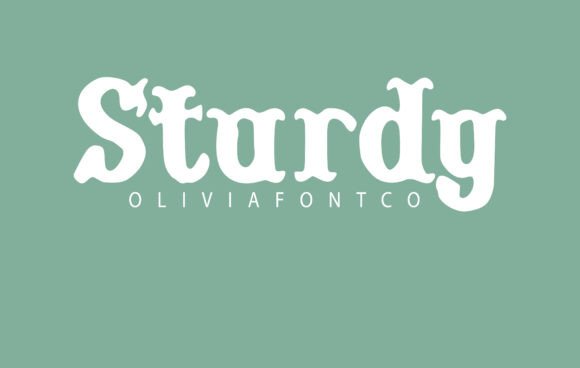
Sturdy Font: Authentic Handwritten Style for Branding
Testing Sturdy Font for Artisan Café Brand Identity
When I first opened a blank artboard to begin visual identity work for a new artisan café, selecting the right typeface was the most critical decision in the entire process. Sturdy font is an authentic handwritten font with a romantic touch that immediately caught my eye during the initial mood boarding phase, distinguishing itself from the sea of generic options available today. While browsing through various Fonts categorized under Slab Serif and display styles, I needed something that felt grounded yet approachable for a coffee shop emphasizing handmade pastries and community connection. The challenge in modern branding is often finding a balance between professional legibility and genuine human warmth, and this specific typeface offered a unique solution that felt less like a digital asset and more like a crafted element.
In this real-world project, the goal was to avoid the sterile look of corporate chains while maintaining enough structure to function across signage and menus. Sturdy provided that necessary anchor. It wasn't just about aesthetics; it was about communication. As I began testing the letterforms against rough sketches of the logo, the weight of the strokes suggested reliability—living up to its name—while the subtle irregularities in the baseline added that essential organic texture. For designers working on hospitality or lifestyle brands, this duality is gold. It allows you to present a business that feels established and trustworthy without sacrificing the intimate, personal vibe that draws customers in off the street.
Sturdy for Logo Design and Packaging Labels
Applying Sturdy to logo design and packaging labels requires understanding how its authentic handwritten characteristics translate at different scales. Expertly designed to be a true favorite, this font has the potential to take your creative ideas to the highest level when used as a primary logotype or a prominent accent on product packaging. During the mockup phase for the café’s pastry boxes and coffee bags, I found that the font’s inherent texture prevented the branding from looking too flat or digitally printed. Unlike standard sans serifs that can sometimes feel cold on kraft paper or textured cardstock, Sturdy absorbed into the material visually, creating a cohesive tactile experience that reinforced the "handmade" value proposition of the client's products.
For logo applications specifically, the font works exceptionally well when given room to breathe. I avoided tightening the tracking too much, as the natural spacing is part of its charm. When designing the primary wordmark, I utilized the font’s bold presence to create a lockup that felt substantial on storefront signage but remained legible on small sticker seals. This versatility is crucial for small businesses that need one typeface to perform heavy lifting across multiple touchpoints. If you are designing for skincare, candles, or boutique retail, consider how this typeface interacts with negative space. Its sturdy construction means it holds up beautifully in reverse knockout text on dark backgrounds, maintaining clarity where thinner scripts might disappear or become muddy in print production.
Pairing Sturdy with Sans Serif Fonts for Menu Layouts
Creating a readable menu hierarchy involves pairing Sturdy with clean sans serif fonts to ensure functional clarity alongside stylistic flair. While Sturdy excels as a display font for section headers like "Espresso Bar" or "Fresh Baked Goods," relying on it for dense body copy would compromise readability and frustrate customers trying to scan prices quickly. In my project workflow, I treated this typeface as the voice of the brand—used for titles, callouts, and special features—while utilizing a neutral geometric sans serif for descriptions and pricing. This contrast creates a sophisticated visual rhythm that guides the eye naturally down the page, proving that romantic typography can coexist with utilitarian design requirements.
This pairing strategy extends beyond physical menus to digital platforms as well. When laying out social media templates for Instagram stories and posts, I used Sturdy for the hook or main headline to stop the scroll, anchoring it with simple supporting text. The key to successful font pairing here is respecting the personality of the primary typeface without letting it overwhelm the information architecture. Because Sturdy carries so much character, the secondary font should be quiet and invisible. This approach ensures that the brand identity remains consistent and recognizable without sacrificing user experience. For fellow designers, I recommend testing these pairings in grayscale first to ensure the visual weight distribution works before introducing color or photography into the layout.
Evaluating Sturdy for Social Media Graphics and Web Headers
Implementing Sturdy in social media graphics and web headers demands careful attention to screen resolution and responsive scaling. As I transitioned from print mockups to digital assets for the café’s website launch, I needed to verify that the romantic touch of the letterforms didn't get lost on high-DPI mobile screens. This font performs surprisingly well in digital environments because of its solid stroke width; it doesn't suffer from the pixelation or aliasing issues that plague finer hairline scripts. On the website hero section, using this typeface for the main value proposition created an immediate emotional connection with visitors, signaling authenticity before they even read the subheadline. It effectively bridged the gap between the physical atmosphere of the shop and its digital presence.
However, practical application requires checking technical specifications before committing to a full rollout. When integrating this font into web design or Canva templates for clients, always verify the licensing terms for commercial digital use and check for included alternates or ligatures that can prevent repetitive letter shapes in longer headlines. I also recommend exporting static images for very large display text on websites to preserve the exact rendering quality, rather than relying solely on webfont loading which can sometimes shift layout. For social media content creators, having a set of pre-approved Sturdy text overlays can streamline production while keeping the brand aesthetic tight. The font’s ability to evoke warmth makes it particularly effective for storytelling captions, announcement cards, and seasonal promotions where emotional resonance drives engagement more than stark minimalism ever could.
Practical Tips for Using Authentic Handwritten Fonts in Commercial Projects
Navigating the use of authentic handwritten fonts in commercial projects involves balancing artistic expression with professional consistency. Sturdy font is an authentic handwritten font with a romantic touch, but unlike messy scrawls, it possesses a structural integrity that makes it safe for business applications. When presenting concepts to clients who might be hesitant about non-traditional typography, I frame this choice as a strategic differentiator rather than just a decorative preference. I show side-by-side comparisons of their competitors using standard serifs versus the distinct personality this typeface brings. This evidence-based approach helps stakeholders understand that the "romantic" quality translates directly to brand recall and customer affinity in crowded markets like hospitality and retail.
Finally, always test the font in context before finalizing any brand guidelines. Print out business cards at actual size, view website headers on a phone, and see how the ink spreads on the intended packaging material. What looks perfect on a 27-inch monitor might feel too heavy on a hang tag or too delicate on a sidewalk chalkboard sign. My experience with this project confirmed that Sturdy is remarkably resilient, but every medium has its quirks. By treating this font as a versatile tool rather than a novelty, you unlock its full potential to elevate creative work. Whether you are a freelancer building a portfolio piece or a studio lead managing a rebrand, this typeface offers a reliable foundation for identities that need to feel both timeless and deeply personal.